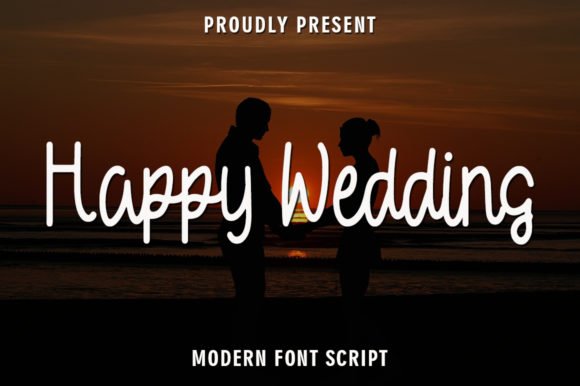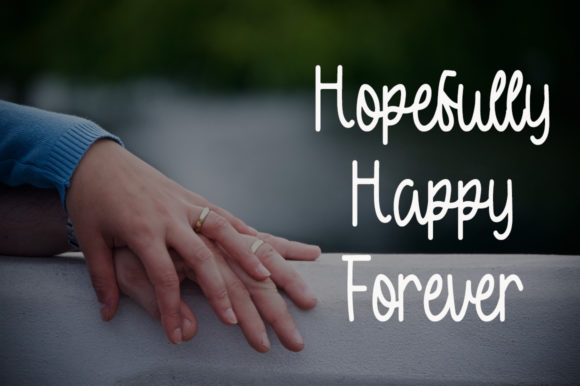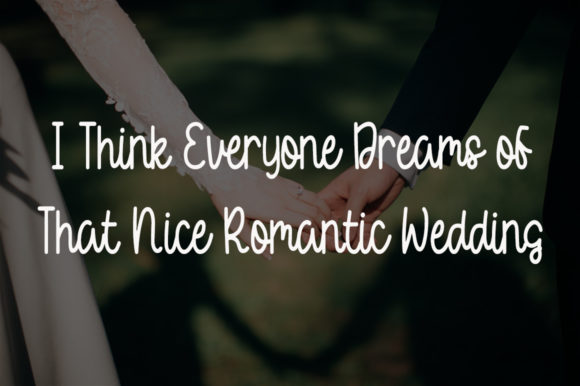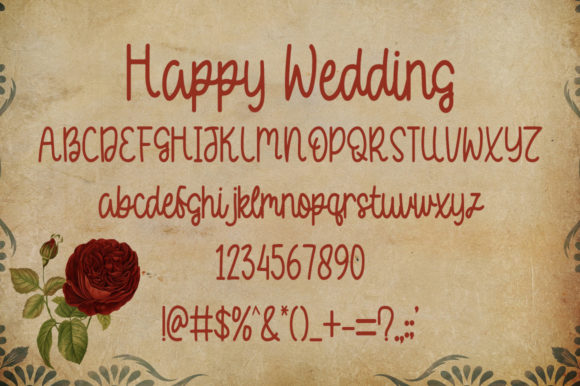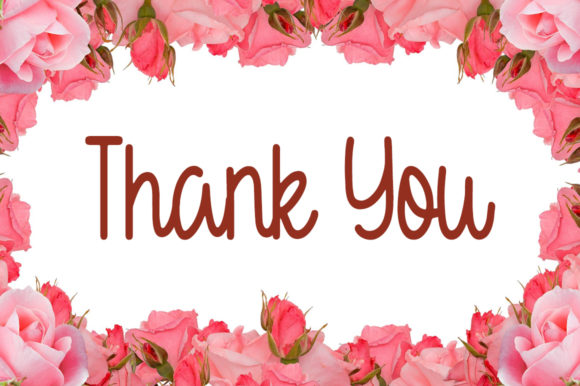
The Perfect Font for Your Special Day
Have you ever sat down with a blank piece of paper, a cup of coffee, and a spark of creativity, only to have it all come together in a burst of inspiration? That’s exactly what happened when we stumbled upon the Happy Wedding Font. Its charming and playful style instantly captured our hearts, and we knew it was a font that would bring joy to any wedding design.
The Happy Wedding Font is a sweet and friendly handwritten font that’s perfect for adding a personal touch to your wedding stationery, invitations, and decorations. Its natural and unique style makes it incredibly versatile, allowing you to let your imagination run wild and create truly one-of-a-kind designs. Whether you’re a seasoned designer or a DIY enthusiast, the Happy Wedding Font is a valuable asset that will make your wedding design stand out.
Happy Wedding Font Key Features
- Font Family: Happy Wedding is a unique, custom-designed font family specifically created for wedding invitations and other special occasions.
- Size: The font family includes 6 font styles: Happy Wedding Regular, Italic, Bold, Bold Italic, Script, and Script Italic, catering to different design needs.
- Unique Characteristics: The font features elegant, cursive script and modern sans-serif elements, making it perfect for wedding invitations, stationery, and other special events.
Happy Wedding Font Review
I recently had the chance to work with the Happy Wedding Font, and here’s my honest take on it.
The font’s playful and cheerful vibe immediately caught my attention. It’s perfect for wedding invitations, save-the-dates, and other wedding-related materials. The font is also highly customizable, making it easy to adjust the size, color, and style to fit your design needs.
- Playful and cheerful vibe
- Perfect for wedding-related materials
While the Happy Wedding Font is a great addition to any designer’s toolkit, it’s not without its limitations. The font is quite bold and may not be suitable for more formal or traditional wedding designs. Additionally, the font’s lines can be a bit uneven at certain sizes, which may require some manual tweaking to get just right.
- May not be suitable for formal or traditional wedding designs
- Uneven lines at certain sizes
Overall, I think the Happy Wedding Font is a great choice for designers looking to add some personality to their wedding designs. While it may not be perfect for every project, it’s a great starting point and can be easily customized to fit your needs. With a little tweaking, it can be a truly beautiful addition to any wedding design.
Tips for Getting the Most Out of Happy Wedding Font
Use Happy Wedding Font for wedding invitations, save-the-dates, and other wedding stationery. You can also use it for wedding website headers, social media posts, and other promotional materials.
To get the most out of Happy Wedding Font, experiment with different font sizes, colors, and styles to create a unique and eye-catching design.